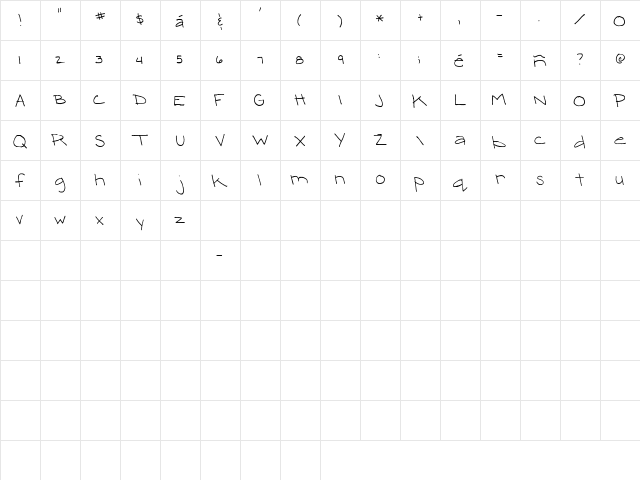
2Peas Morgan 2Peas Morgan
Design Context for 2Peas Morgan Typeface
2Peas Morgan is a composed and adaptable typeface that performs quietly and consistently across a wide range of design contexts.